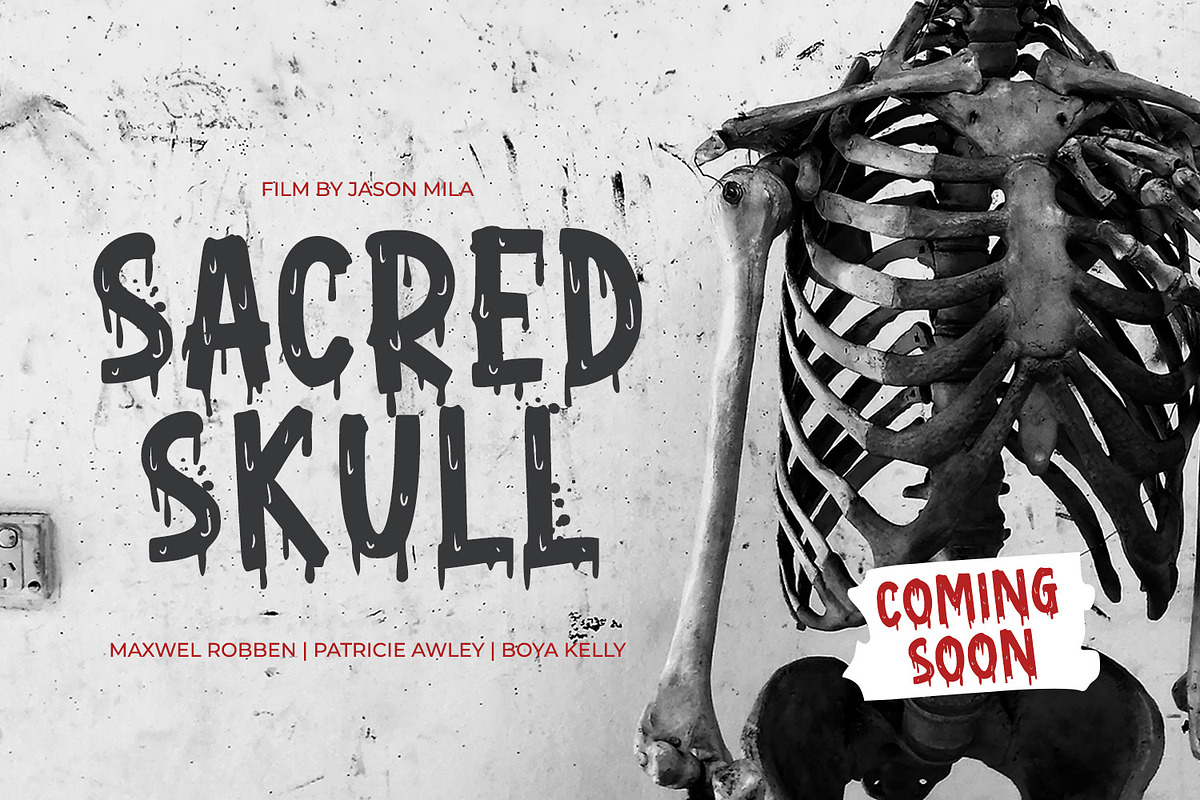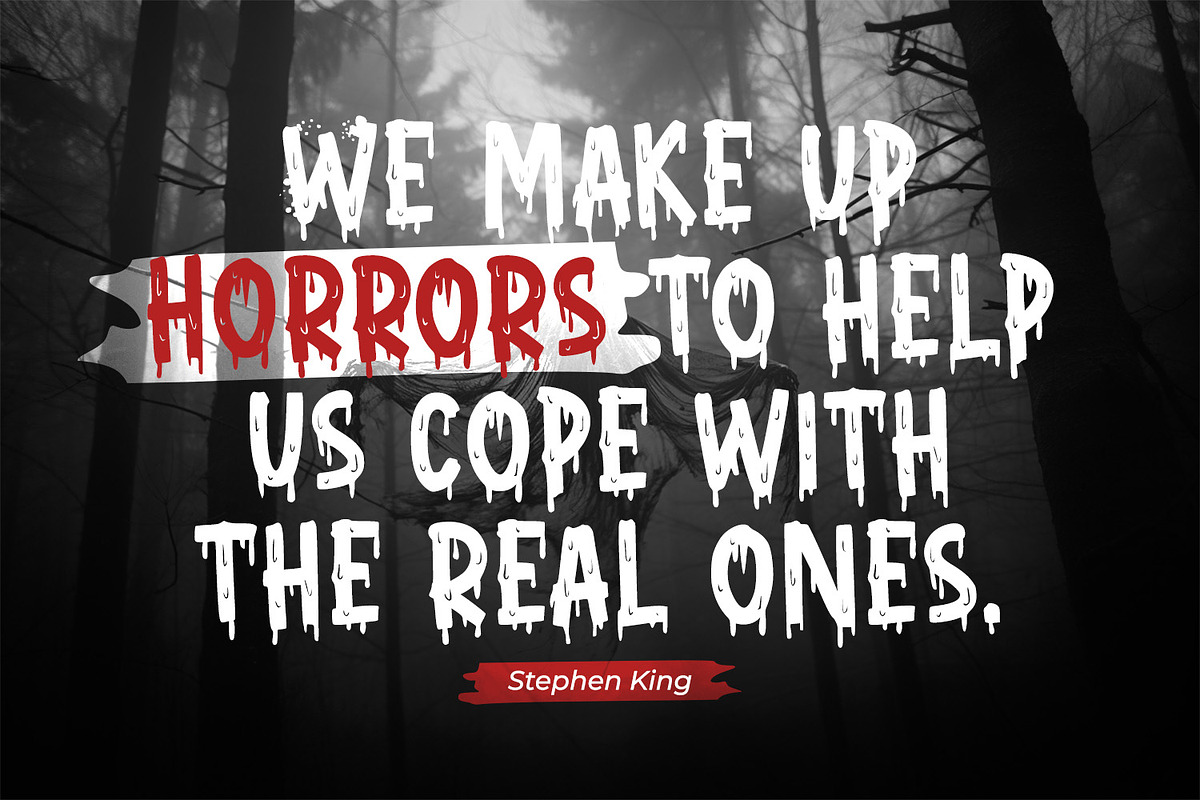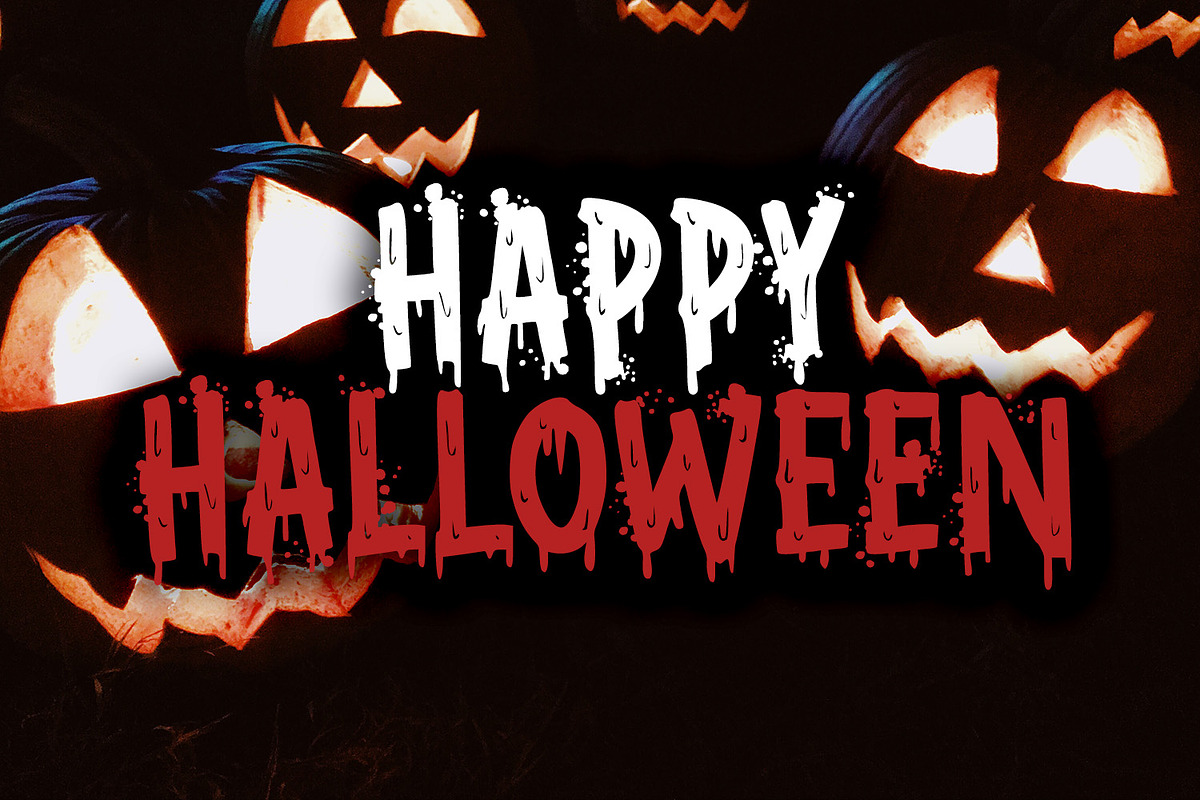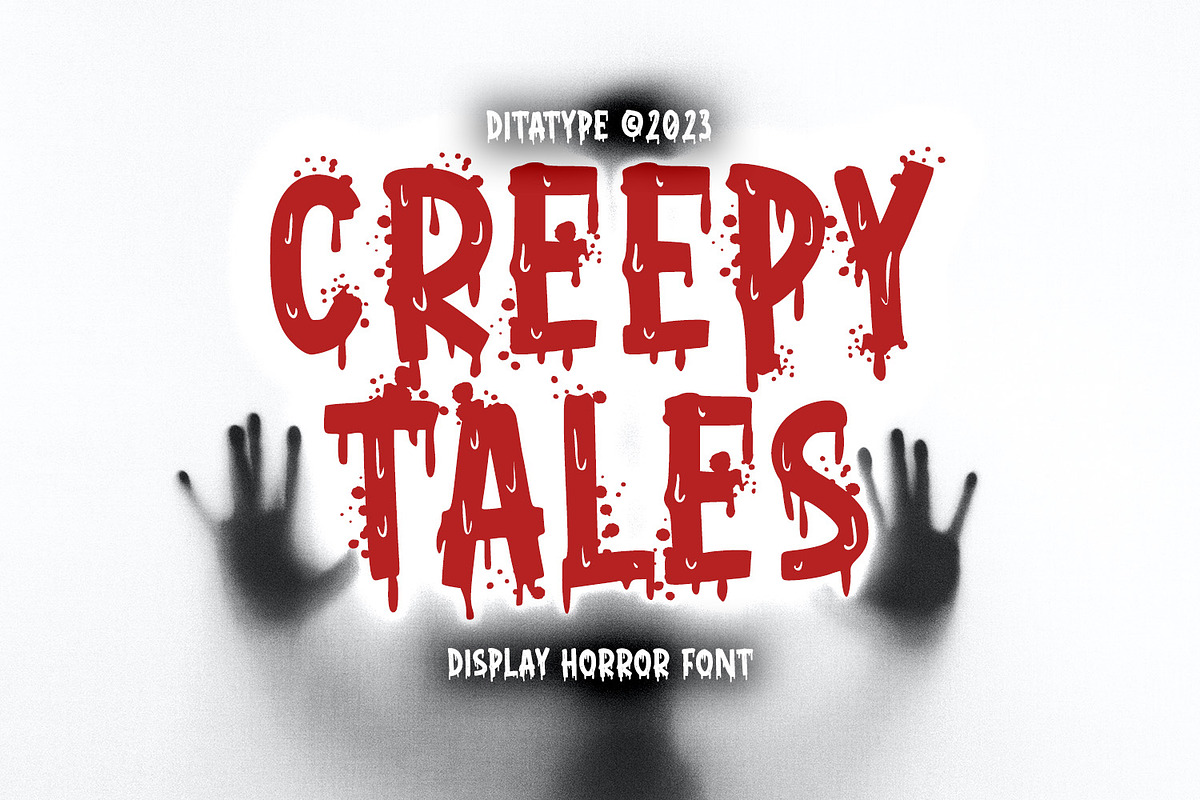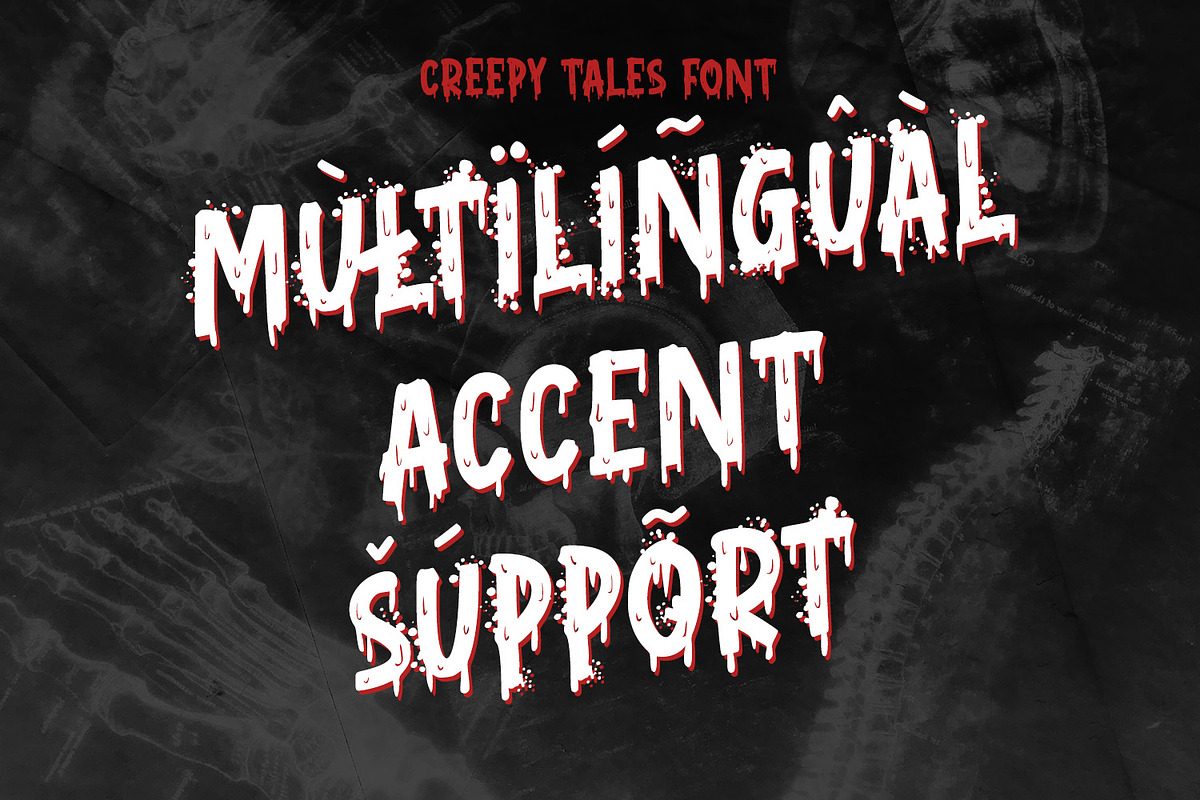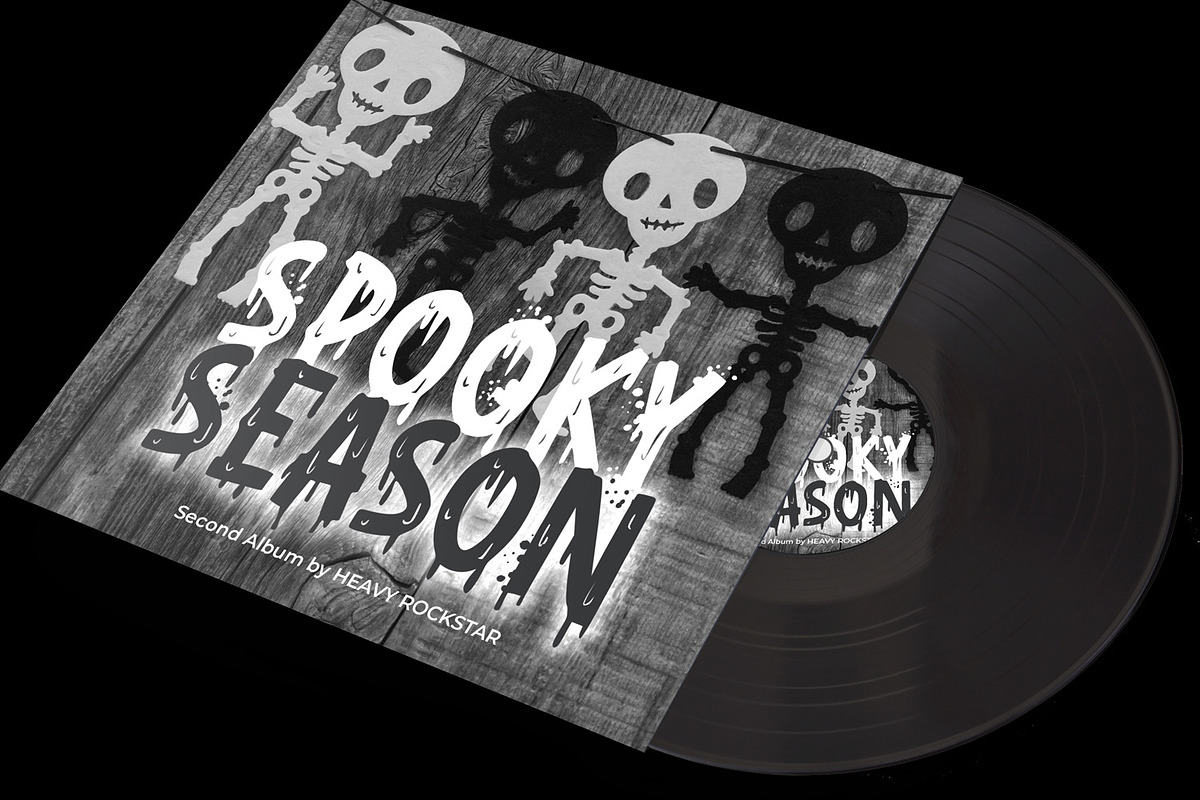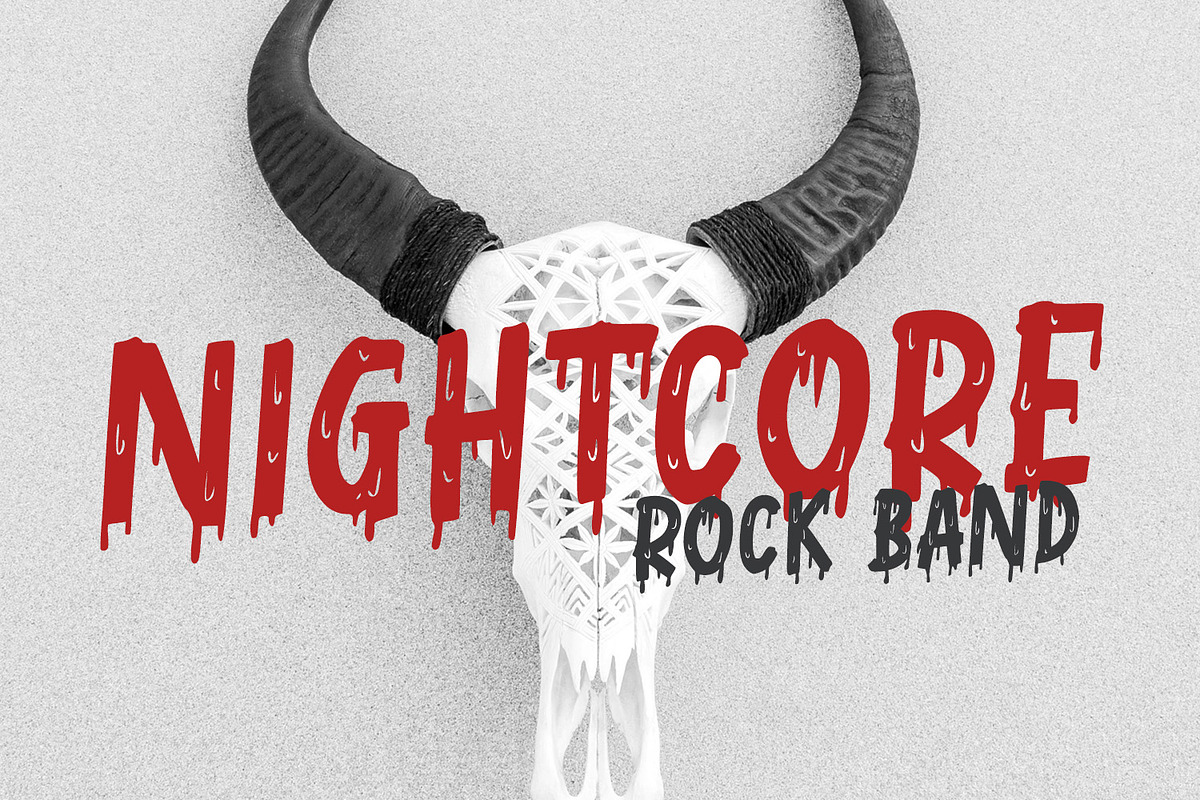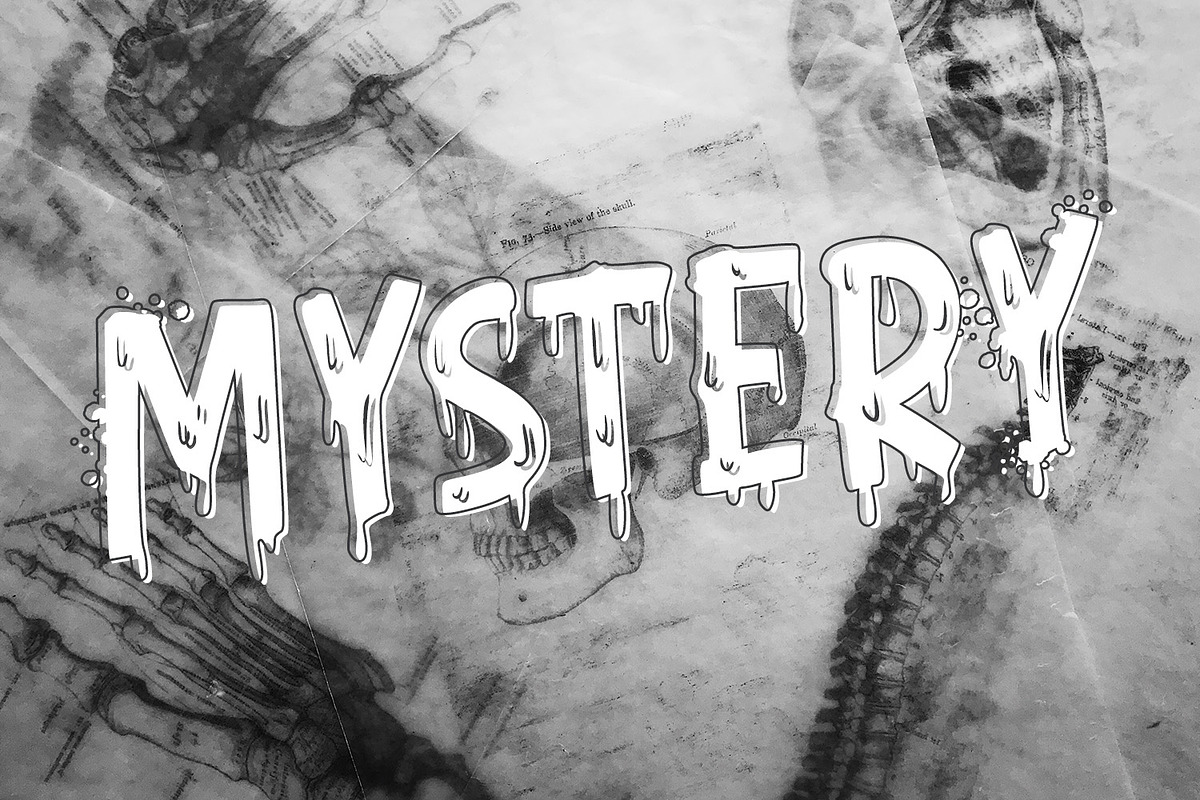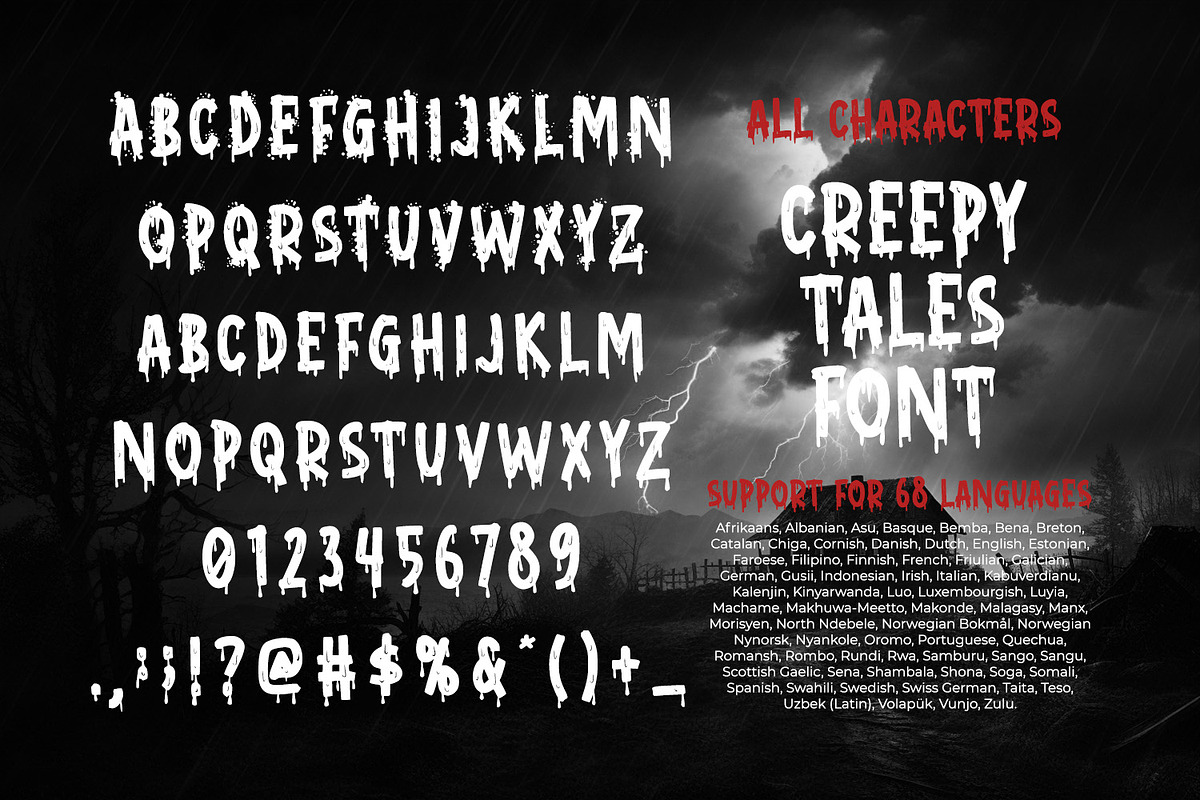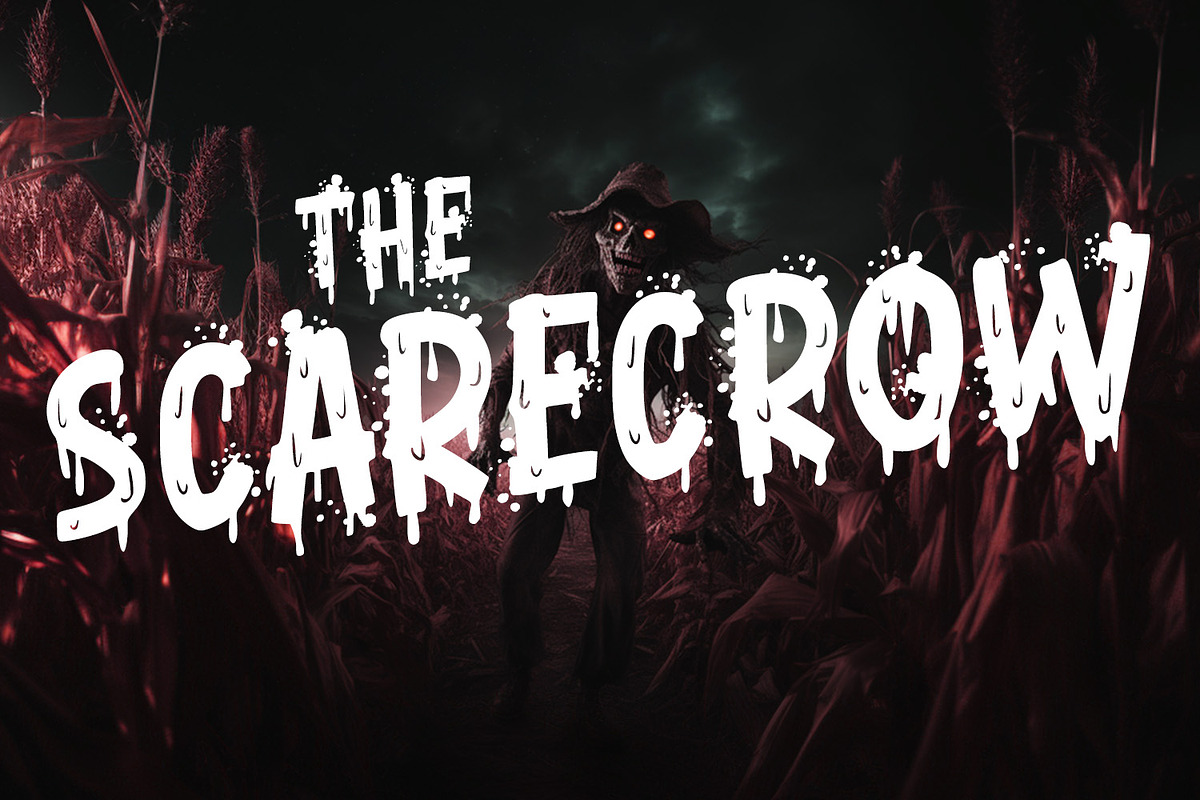
Creepy Tales
Creepy Tales is a spine-chilling display font that will send shivers down your spine. With its big letters and bold weight, this font demands attention and exudes fear. The horror theme is brought to life with meticulously crafted dripping ink details on each letter, adding a nightmarish and eerie touch to the font. Each letter in this font is bold and impactful, making a powerful statement in your designs. The large size of the letters further intensifies the font's haunting presence. The dripping ink details in this font give the font an organic and unsettling appearance, as if the letters are oozing with dread. These haunting details add a sense of macabre and create an atmosphere of suspense, immersing the viewer into a world of dark and chilling horrors. For the best legibility you can use this font in the bigger text sizes. Enjoy the available features here.
Creepy Tales fits in headlines, logos, movie posters, flyers, invitations, branding materials, print media, editorial layouts, headers, and any project that requires a terrifying touch. Find out more ways to use this font by taking a look at the font preview.